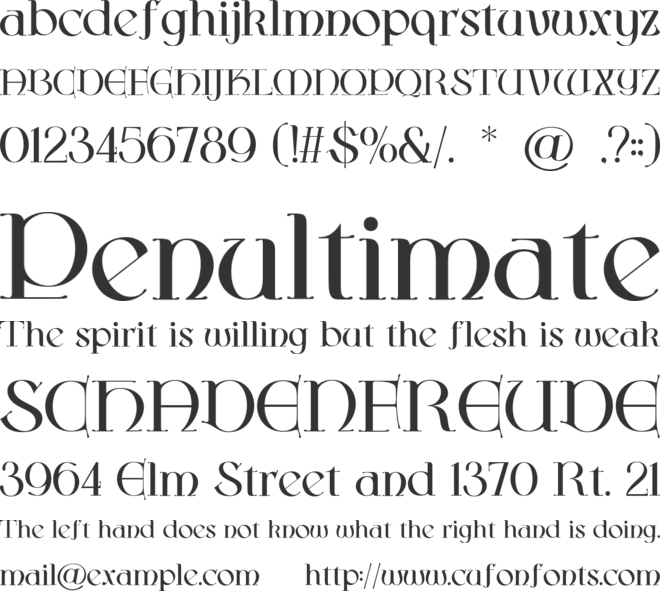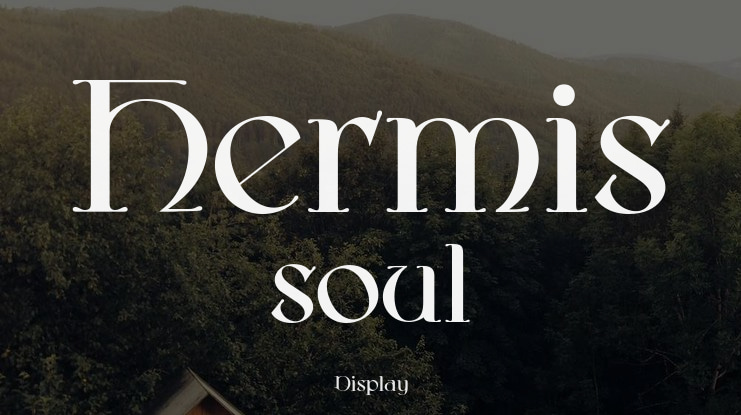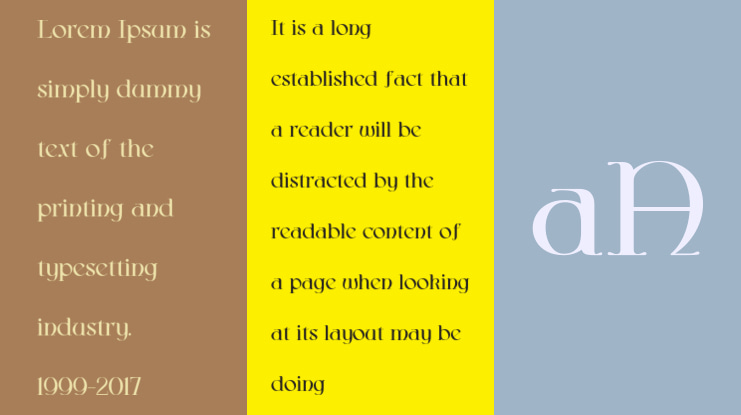
Hermis soul Font
Hermis Soul Typeface - A Journey into Classical Elegance
Step into a world of timeless sophistication with the Hermis Soul Typeface, a masterfully crafted font that breathes life into the majestic soul of ancient Greco-Roman and classic European aesthetics. Painstakingly designed by Alit Design, Hermis Soul is not merely a collection of letters but a gateway to an era of divine artistry and architectural splendor.